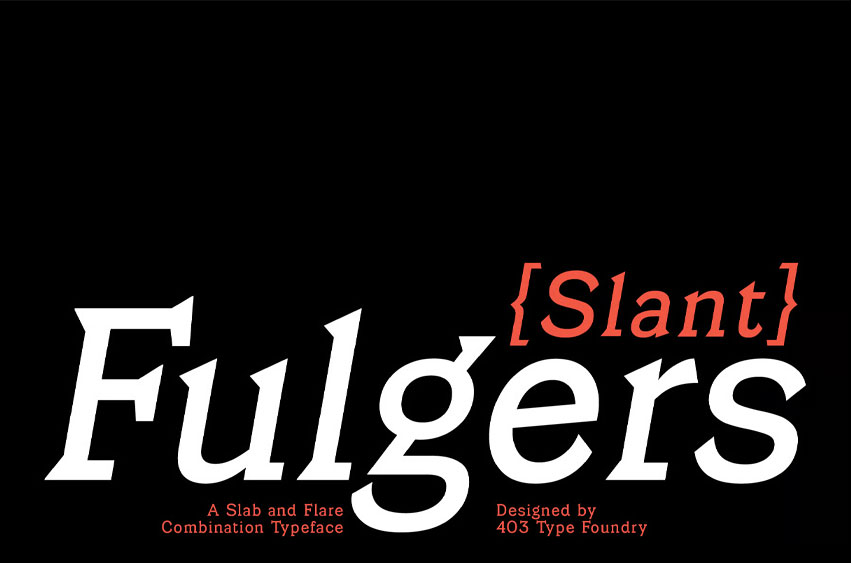
Fulgers Slant Font is a creative typeface that masterfully combines the dynamic flair of current design with the timeless appeal of slab serifs. This experimental typeface has a distinctive look that makes it stand out in any project and radiates old modern vibes. Its broad ligatures and multilingual support, together with its more than 500 glyphs, ensure variety and originality in your typographic pursuits. Fulgers are ideal for anyone wishing to add a little modern edge and classic beauty to their work.
• Slanted
• 500+ Glyphs
• Number